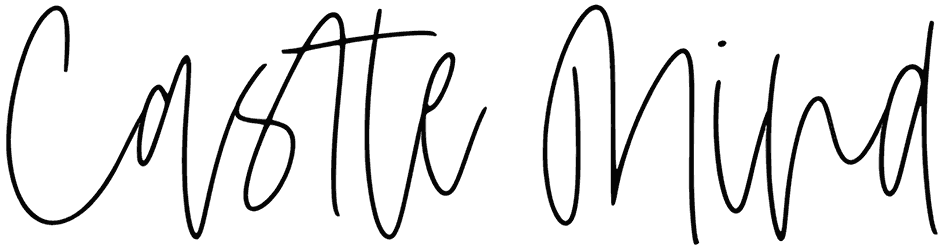
Castle Mind Font
Show off your creativity and display a perfect arrangement. You can use this handwritten font based on your taste in any casual location. But be careful about its unreadable feature. Would you like this pickup? Stay with us and check our website every day to see our daily updates.
Castle Mind is trying to give potential candidates an opportunity to move over others despite leaving out numbers. RB warrants you to get a pleasant viewing!